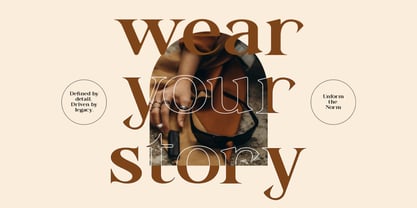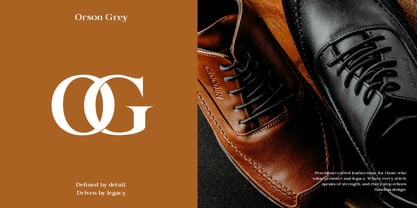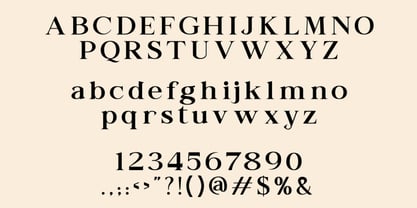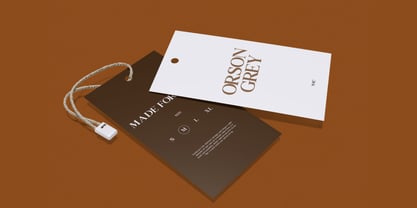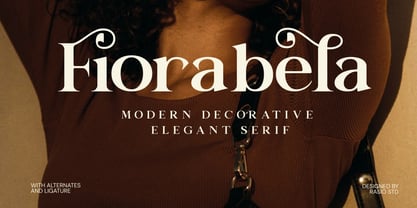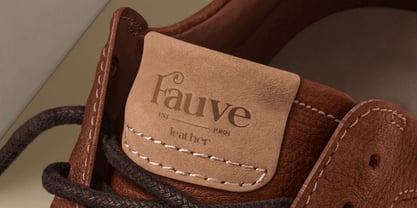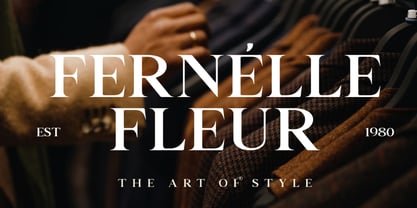
Fiorabela
by Rasio Studio
The Fiorabela Font Family was designed by Fajar Indra and published by Rasio Studio. Fiorabela contains 1 styles. More about this family
The Fiorabela Modern Decorative Serif Font is a refined and artistic typeface that blends elegant curves with classic serif charm. Featuring graceful swashes, sculpted terminals, and decorative alternates, Fiorabela radiates sophistication and creativity — perfect for editorial layouts, fashion branding, wedding designs, and luxury product packaging. With features like complete uppercase and lowercase letters, numerals, punctuation, alternates, ligatures, it offers flexibility and timeless appeal. Whether used for high-end brand identities, magazine titles, or expressive typography, Fiorabela Font delivers elegance, beauty, and modern artistry in every detail.
Designers: Fajar Indra
Current Foundry: Rasio Studio